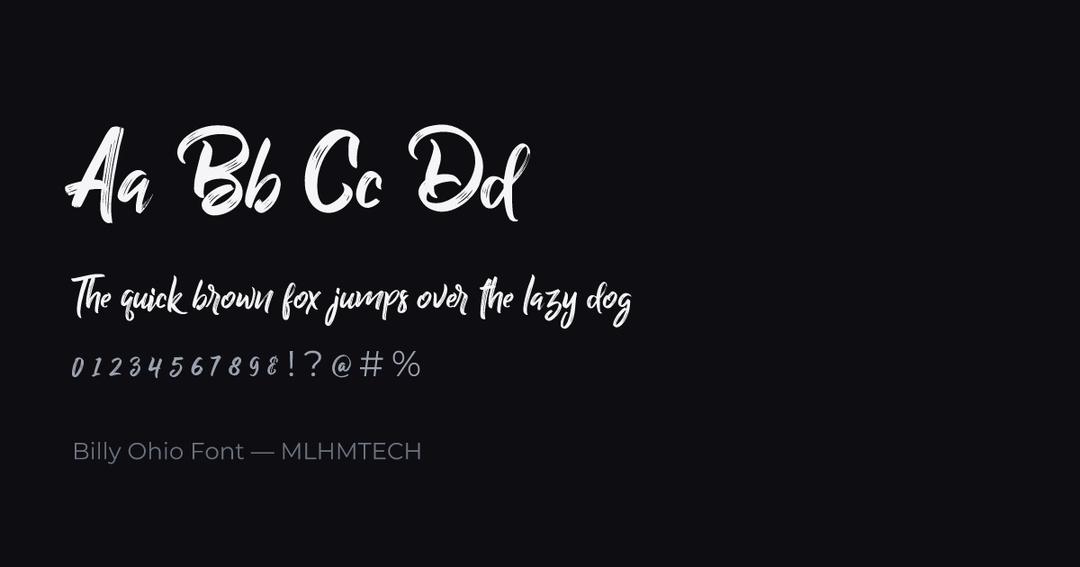
Billy Ohio Font
Billy Ohio is a playful handwritten font that adds a personal touch to any design. Ideal for titles, logos, and creative projects.
Billy Ohio is a charming handwritten typeface that brings a sense of authenticity and warmth to your projects. Its irregular letterforms and natural flow make it perfect for designs that need a human touch, such as greeting cards, social media graphics, or branding materials.
This font is versatile and easy to use. Pair it with clean sans-serifs for contrast, or let it stand alone for a bold statement. Whether you're working on a poster, a logo, or a website, Billy Ohio will help your text stand out.